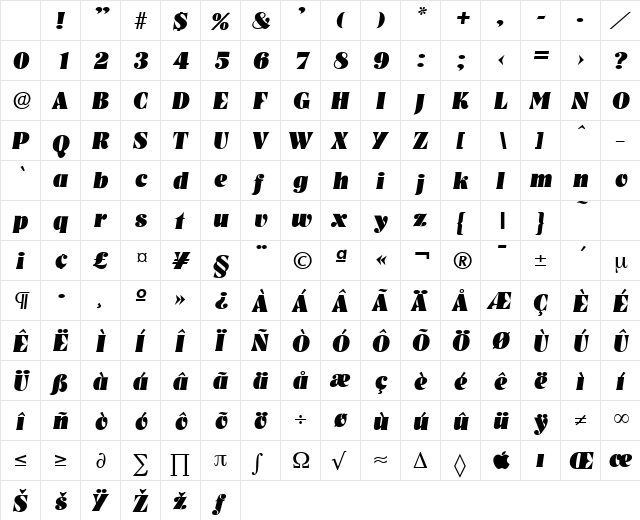
Nashville-Serial-Heavy RegularItalic
Style: RegularItalic
Nashville-Serial-Heavy Family
Nashville-Serial-Heavy RegularItalic
Design Context for Nashville-Serial-Heavy
Nashville-Serial-Heavy is a composed and adaptable typeface that performs quietly and consistently across a wide range of design contexts. The slanted form adds forward momentum and visual energy.